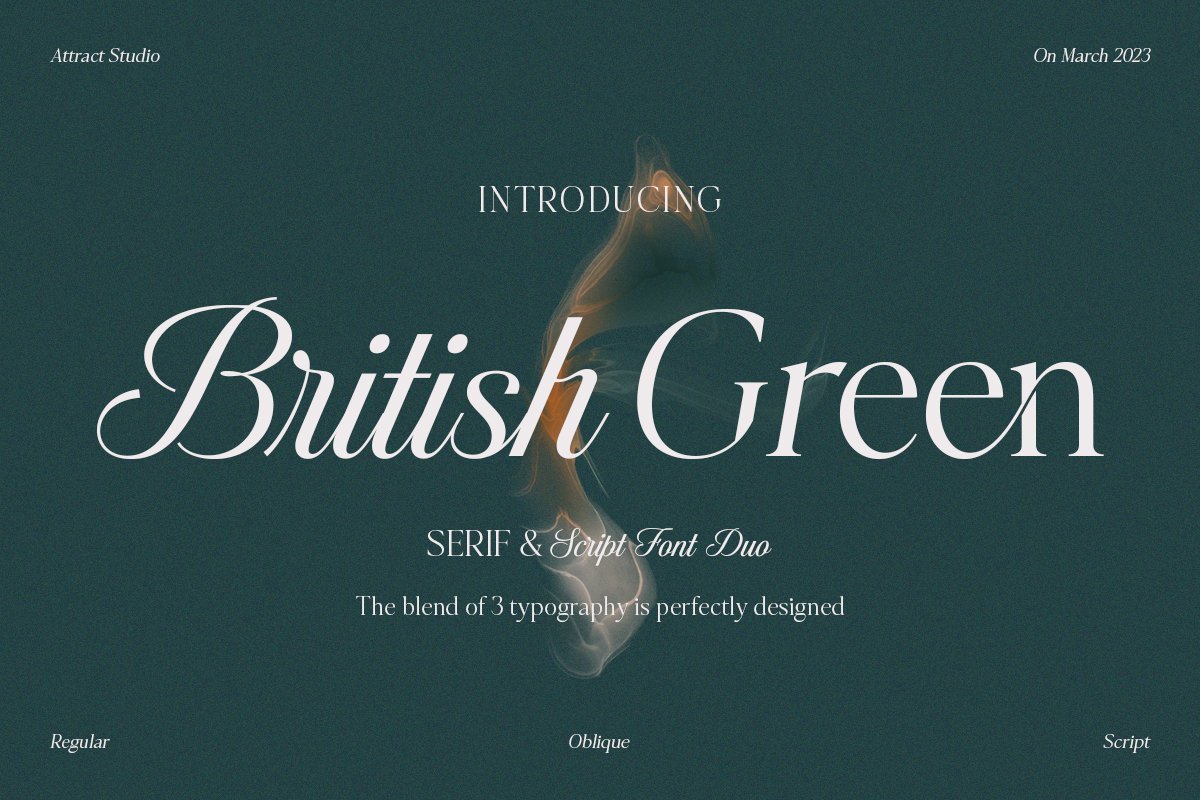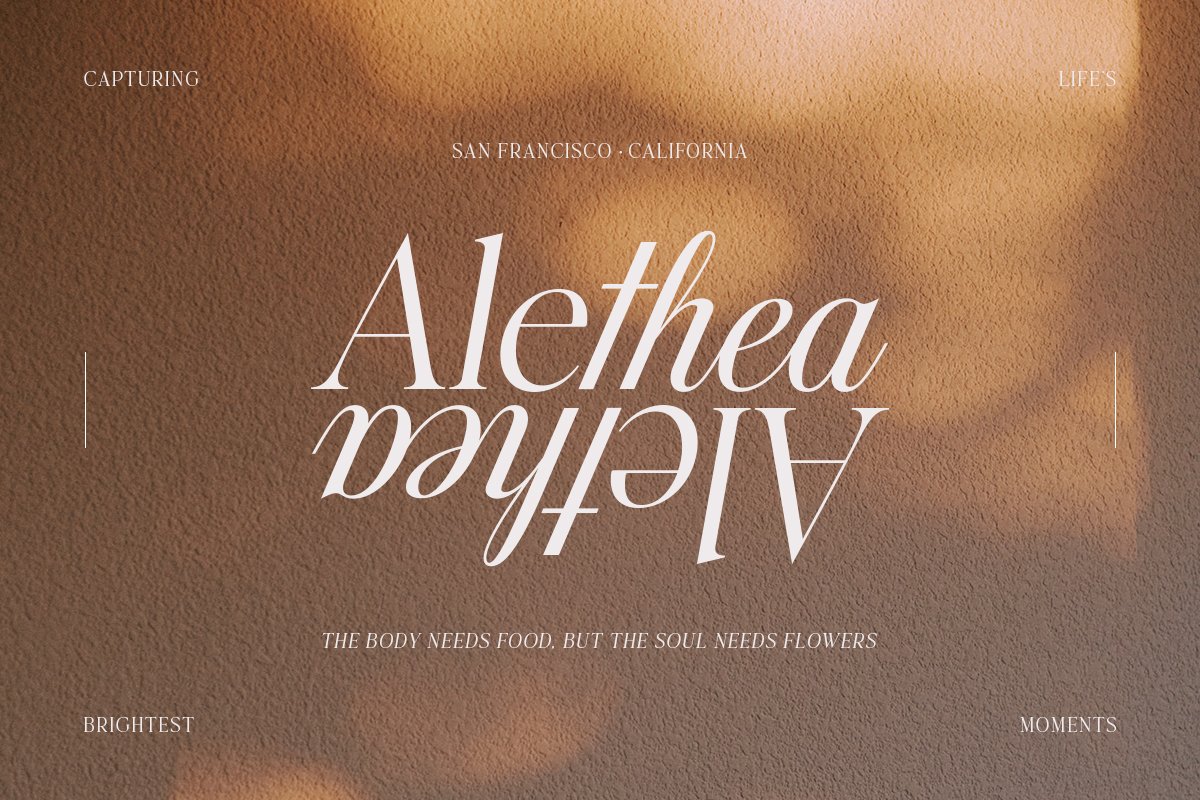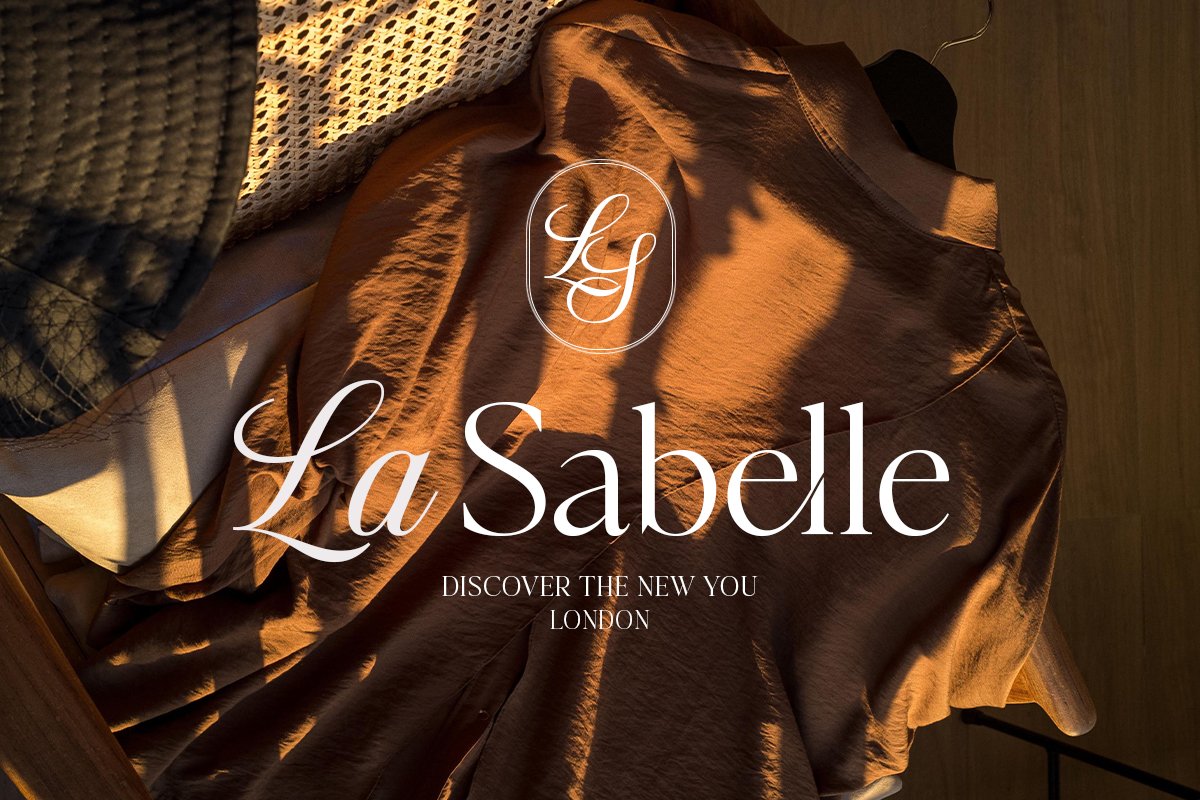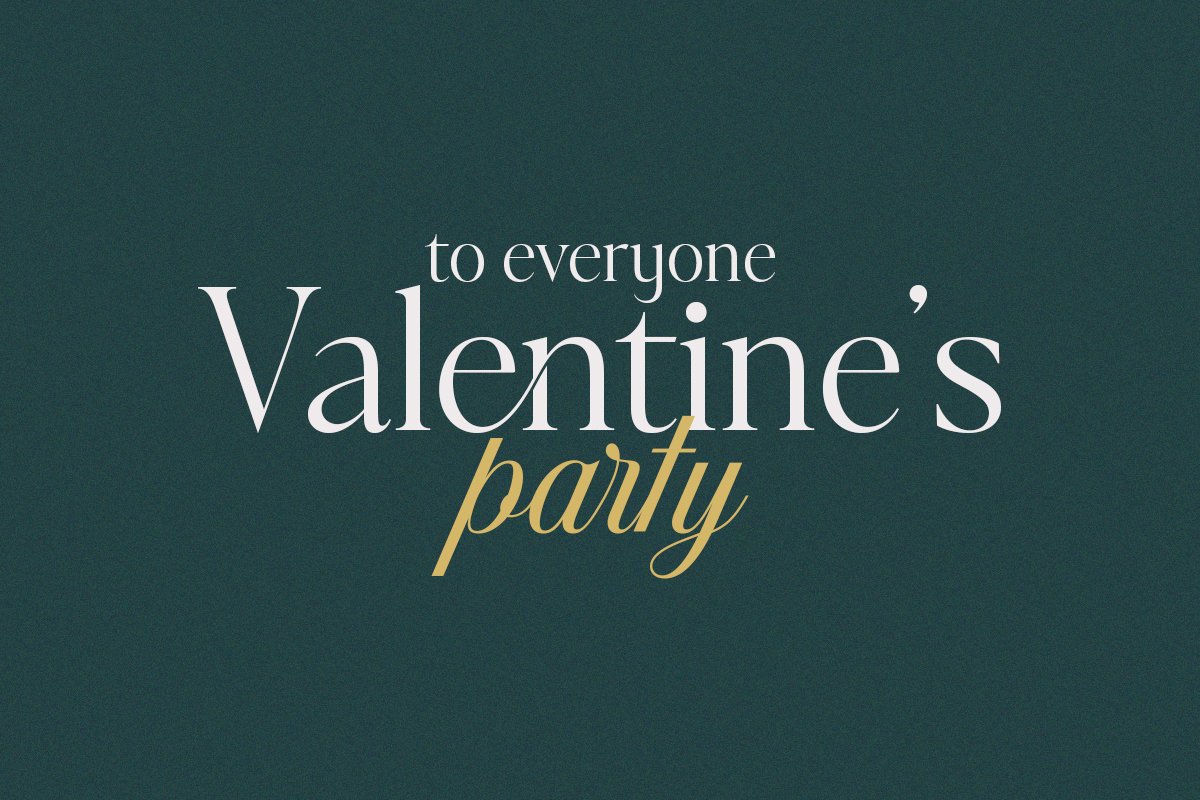
About the British Green
British Green is a font duo consisting of a script font and a serif font that stylize attractively when placed side by side, Which comes with upper and lower case characters in each individual font, British Green a versatile set of fonts that can be used & suited across a variety of design projects, Includes:British Green Serif Otf, TtfBritish Green Oblique Otf, TtfBritish Green Script Otf, TtfMultilingual SupportPUA Encoded Characters